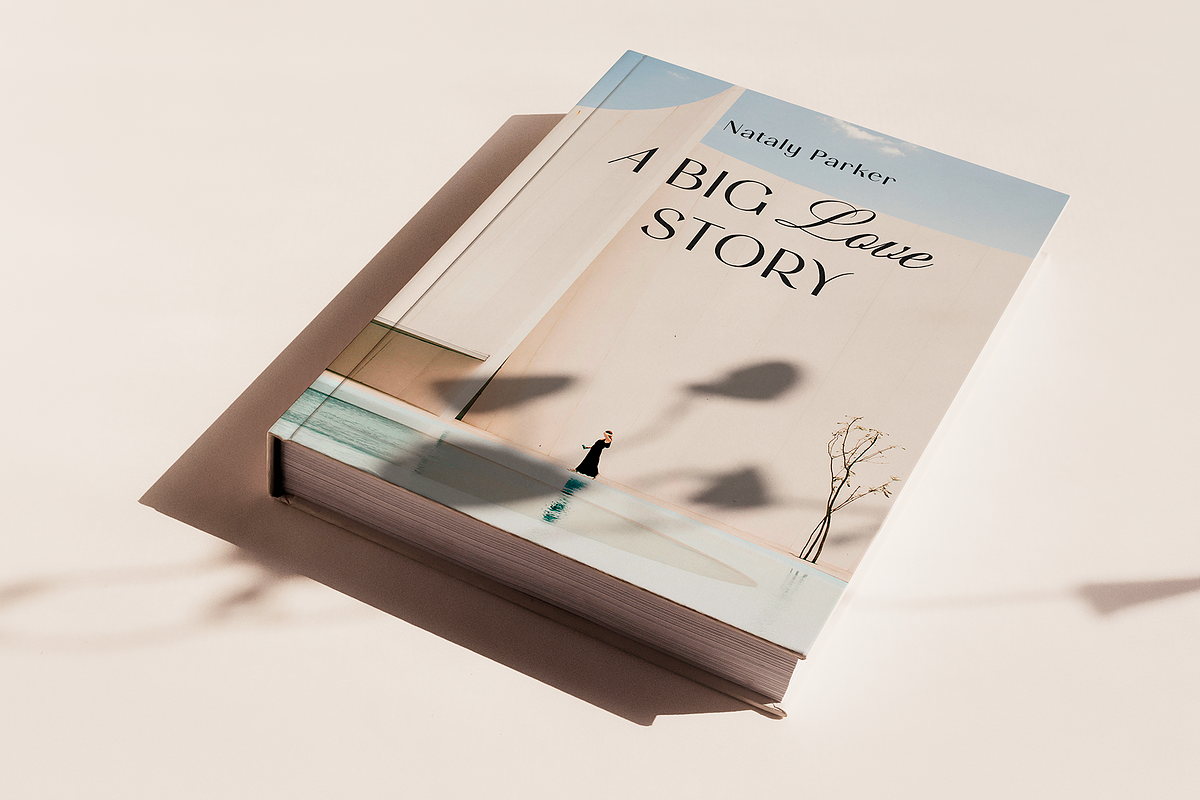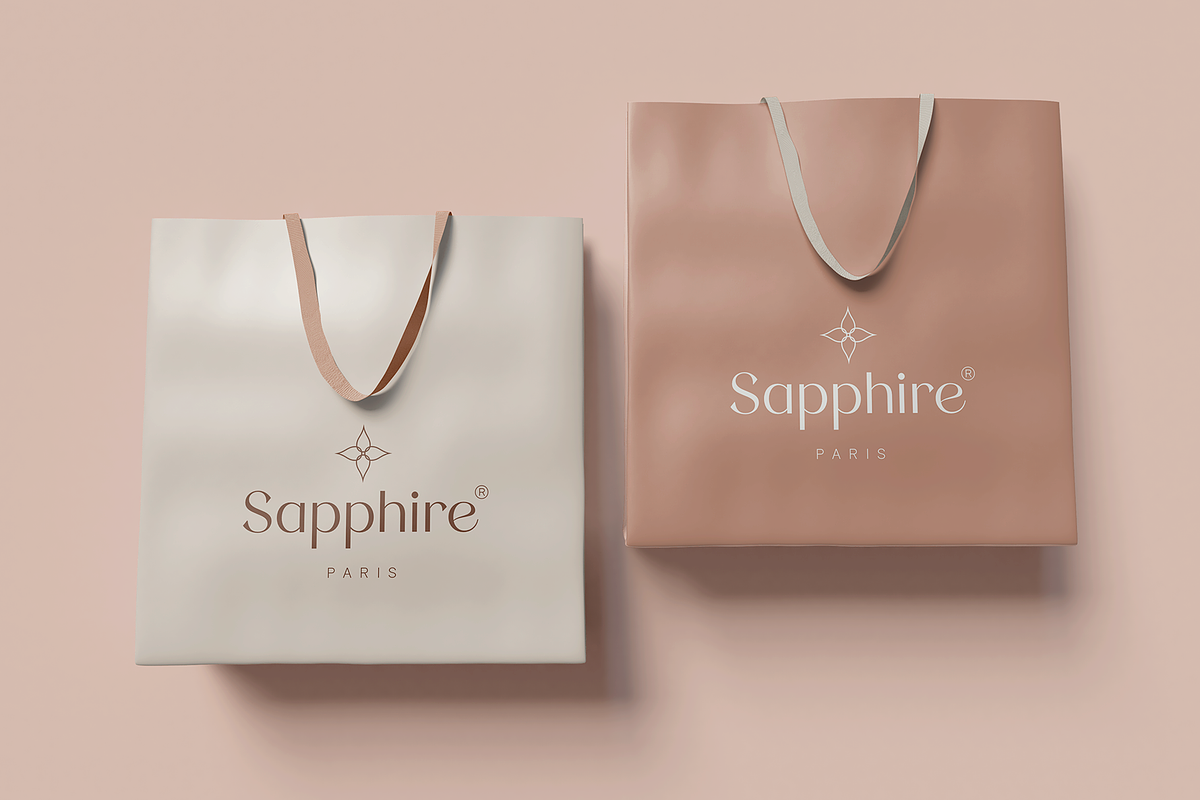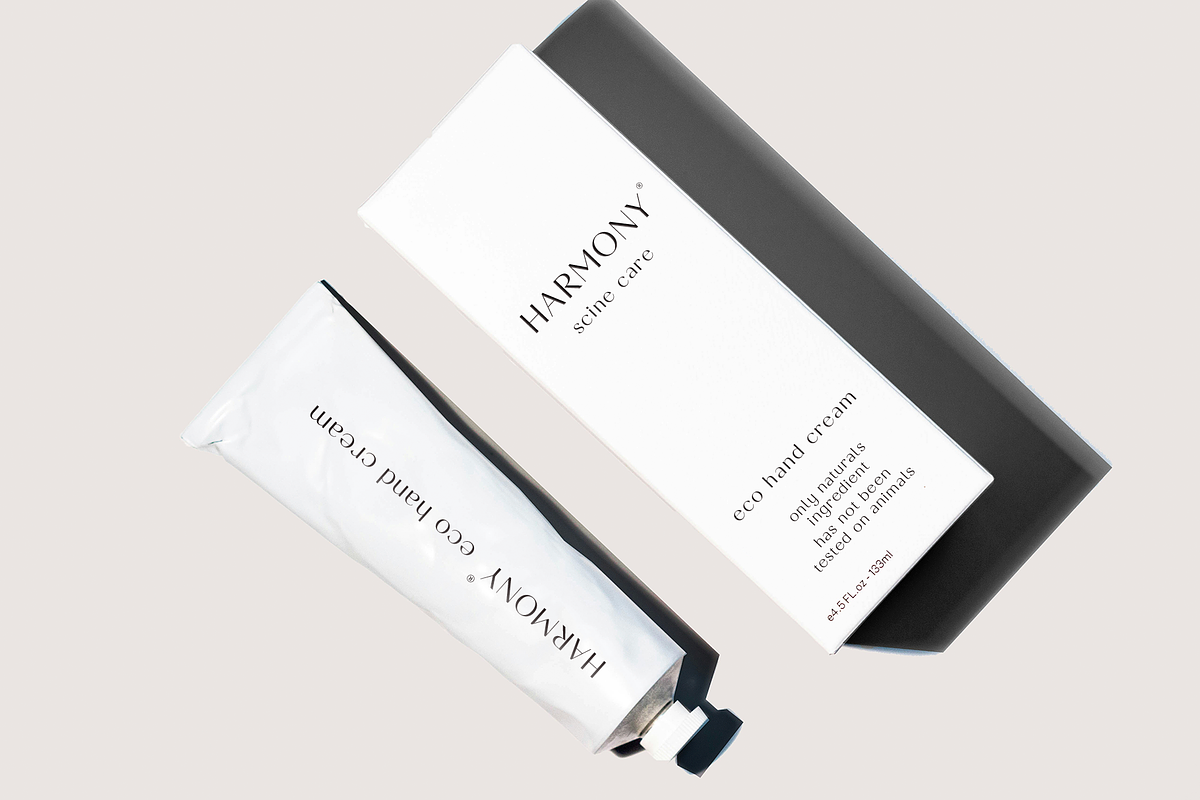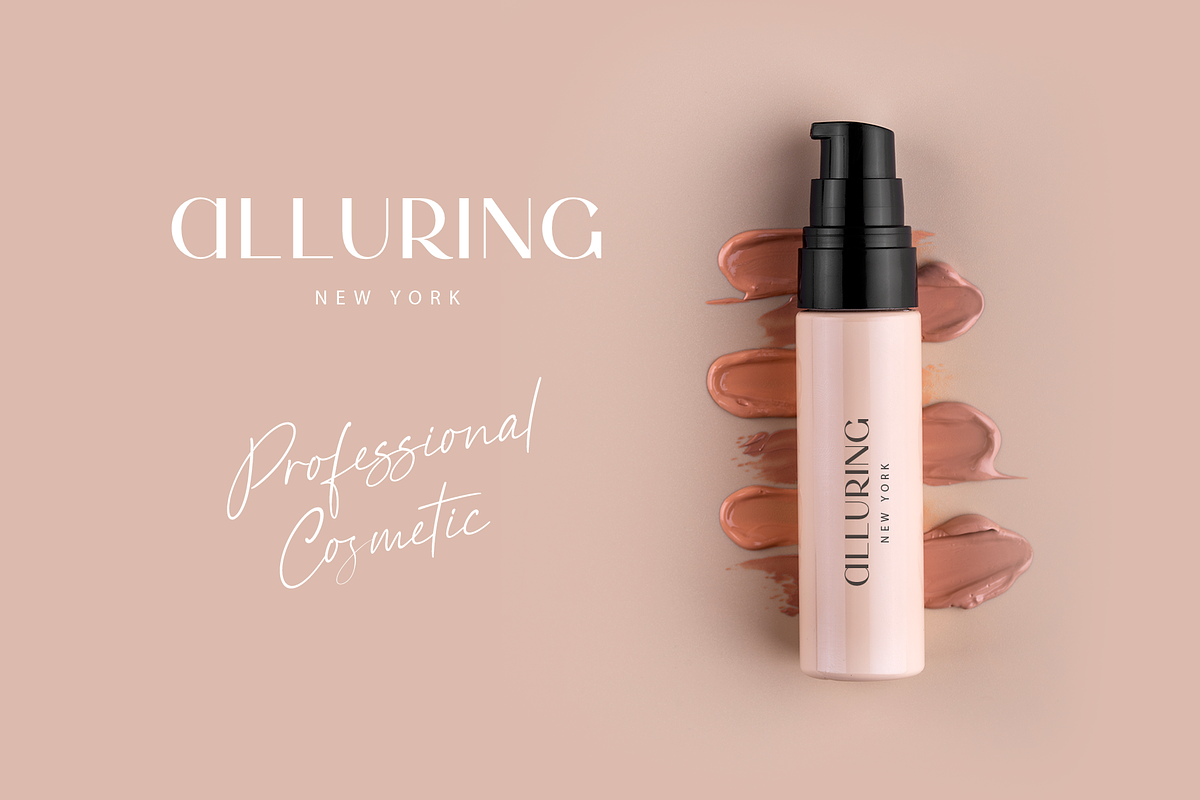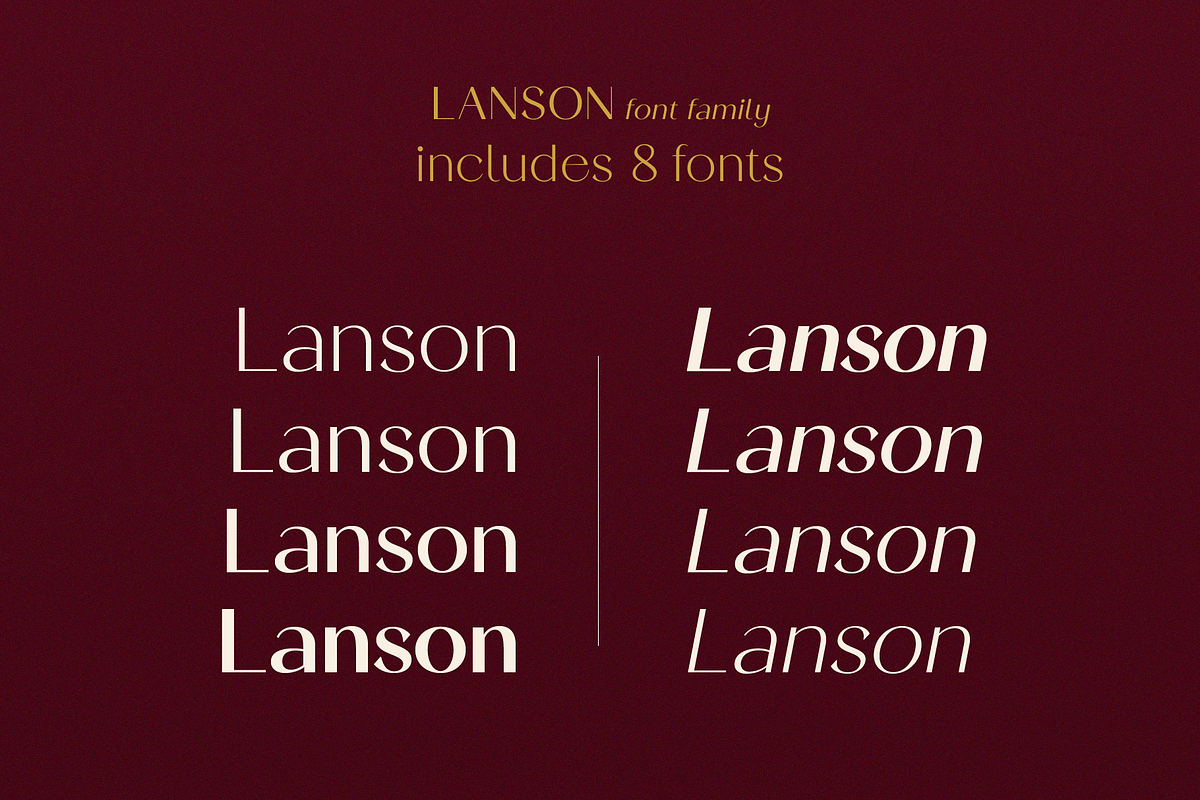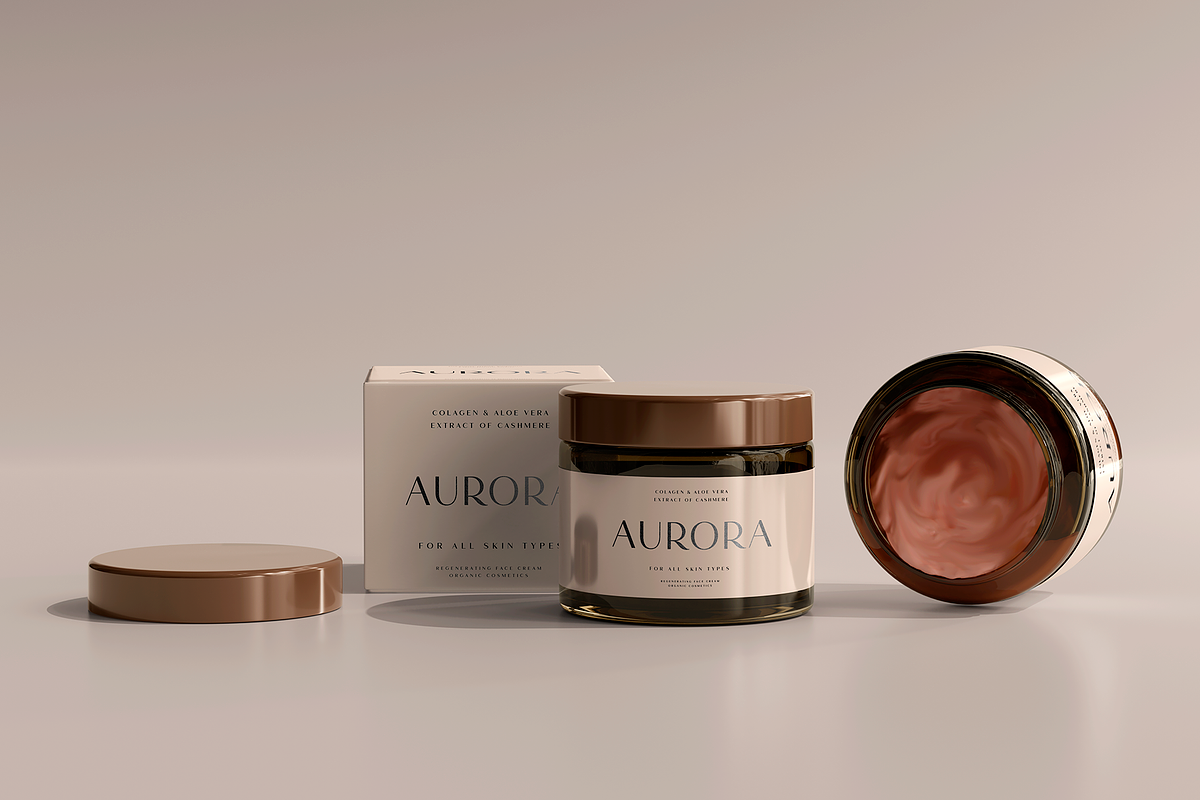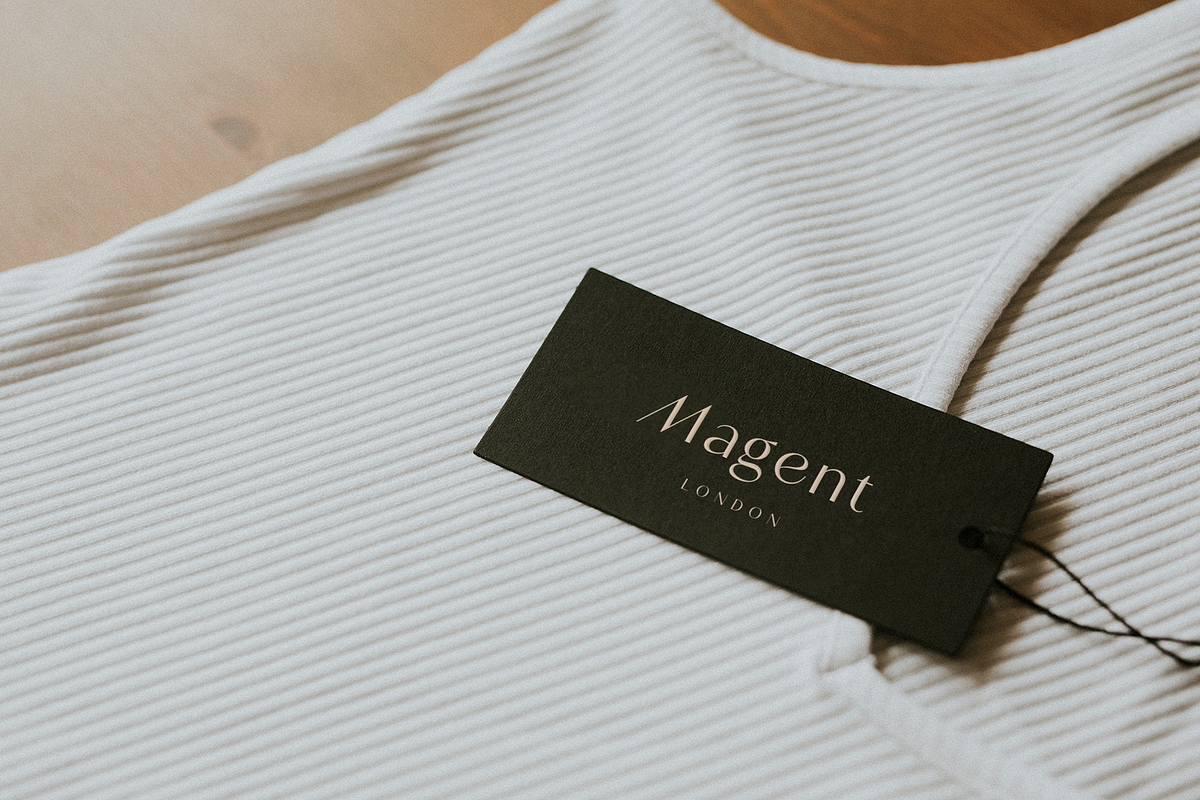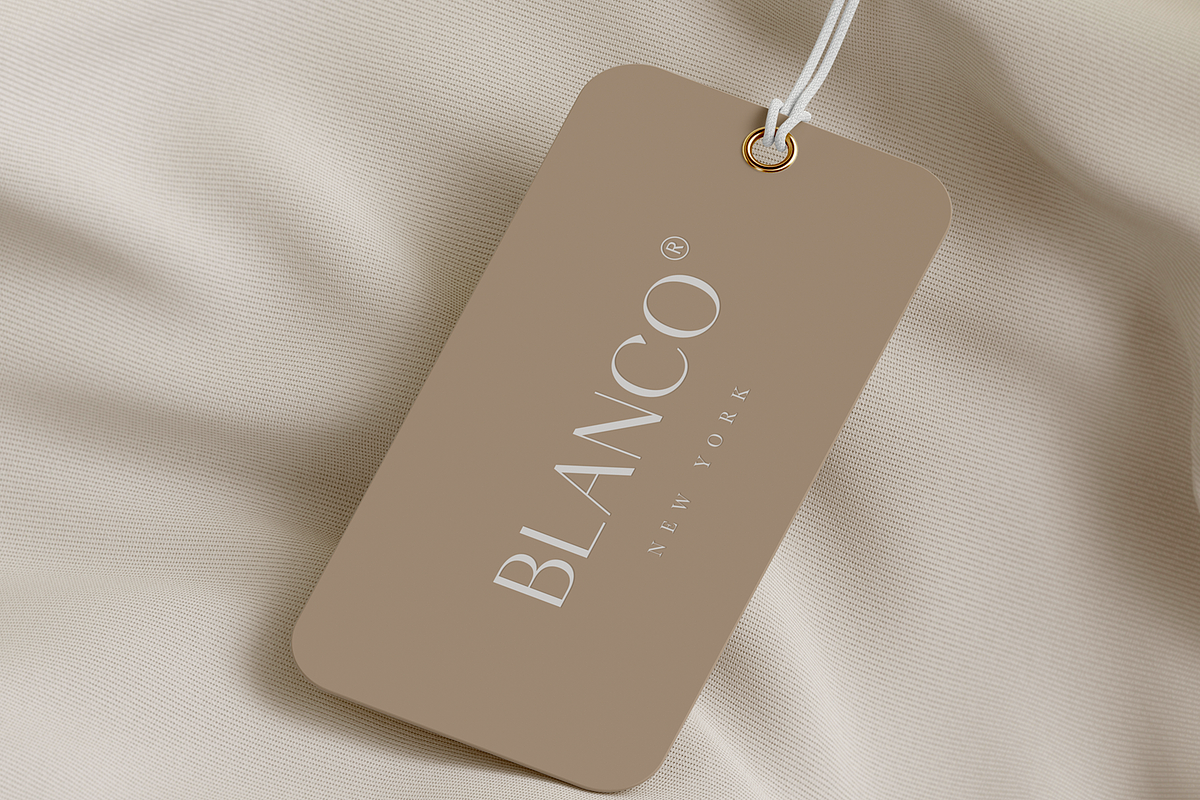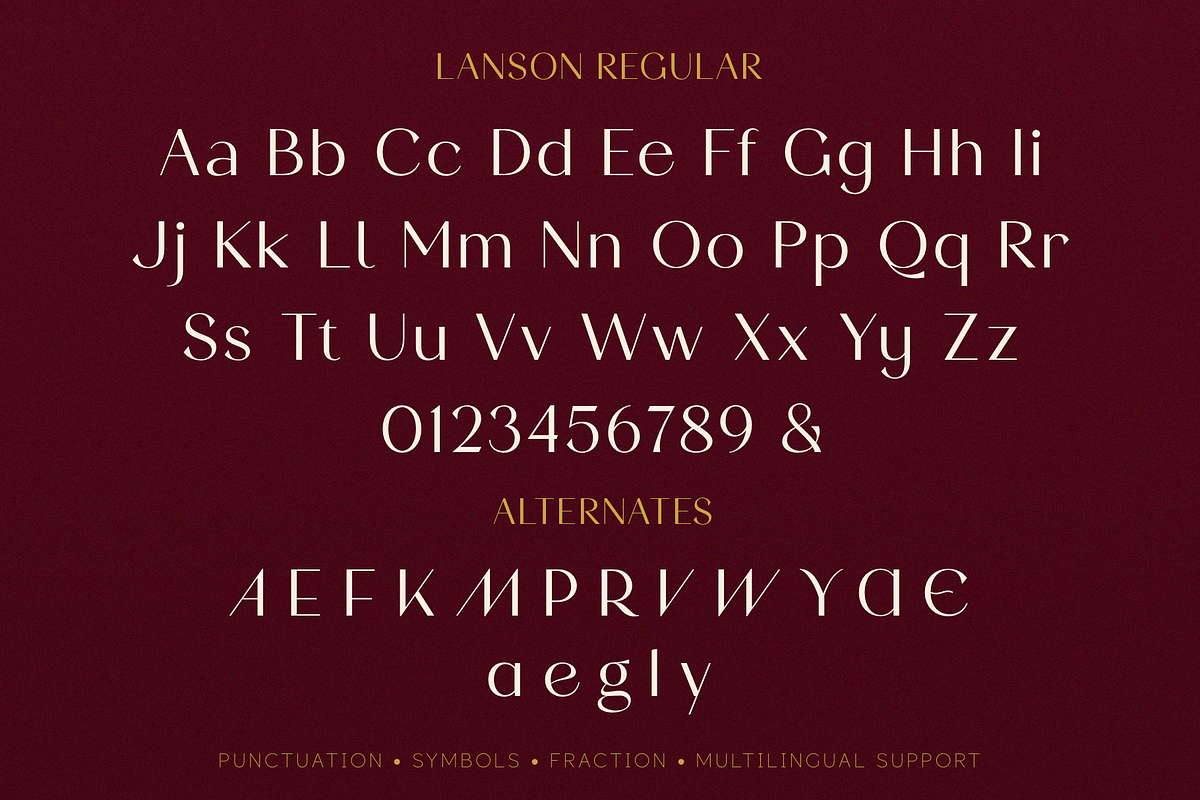
Lanson Font Family
Lanson is an elegant, modern, and expressive contrast sans-serif font family, and a great fashionable solution for your project. It includes upright and Italic style, each of them has four weights from light to bold. This is a multi-purpose font that is perfect for fashion project, it is contrasted, modern and easy to read. With it, you can create logos, banners, use in advertising, packaging, book covers and magazines, headings, descriptions and much more.
Following international symbols support: ÀÁÂÃÄÅĄÇĆÈÉÊËĘÌÍÎÏÐÑŃŁÒÓÔÕÖØÙÚÛÜŚŠŸÝŹŻŽßàáâãäåçèéêëìíîïðñòóôõöøùúûüýÿąćęłńśšźżž